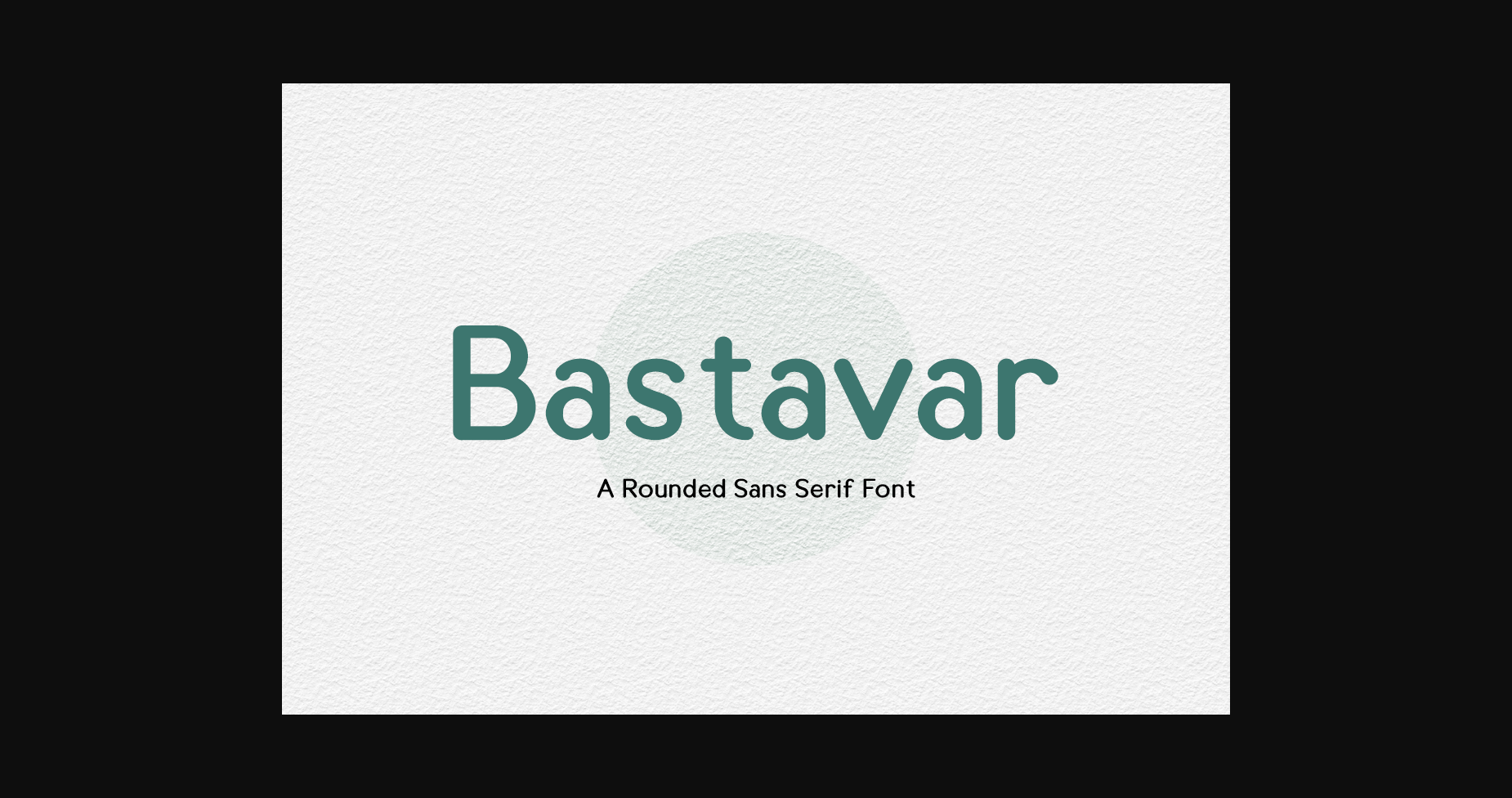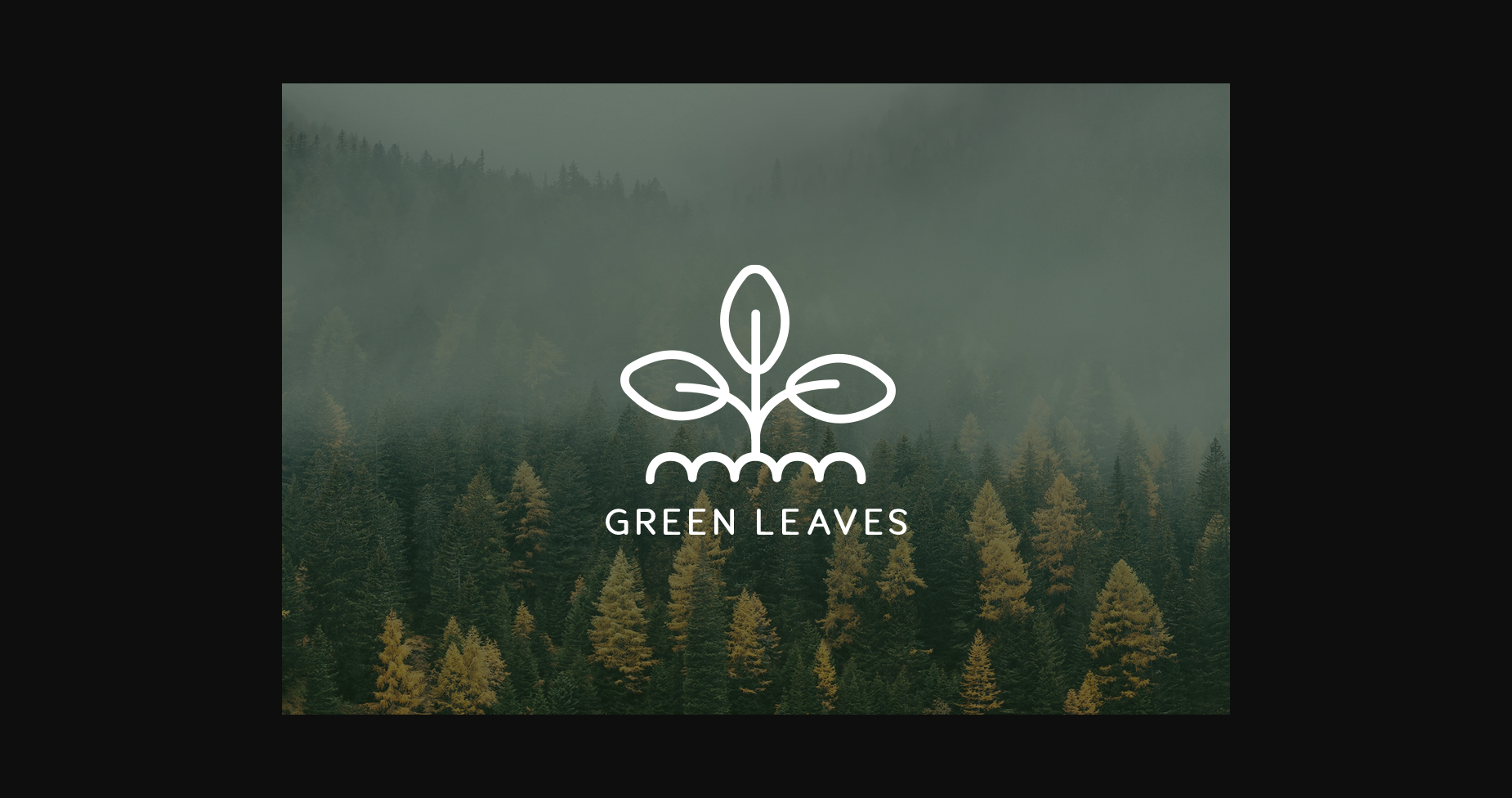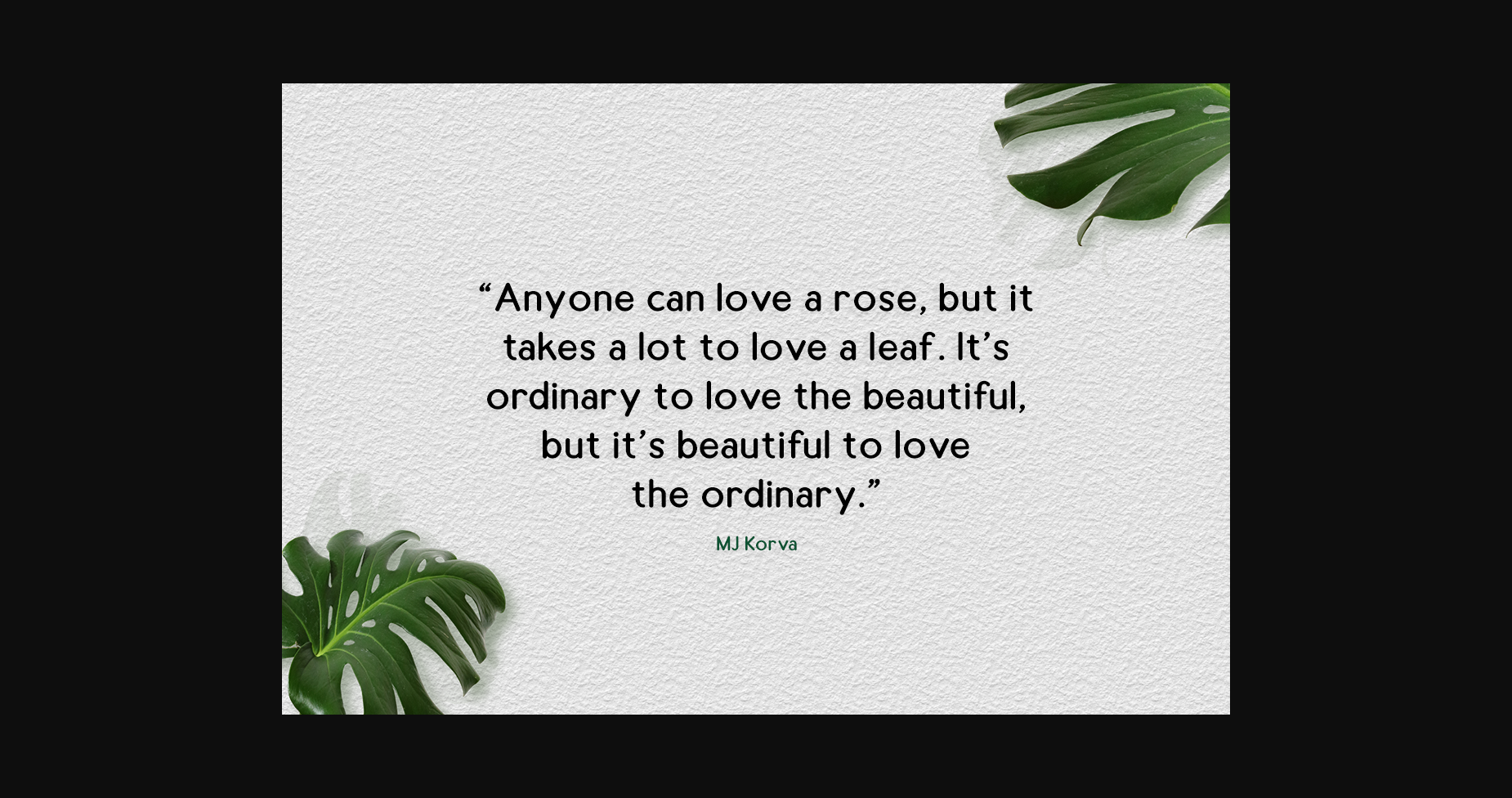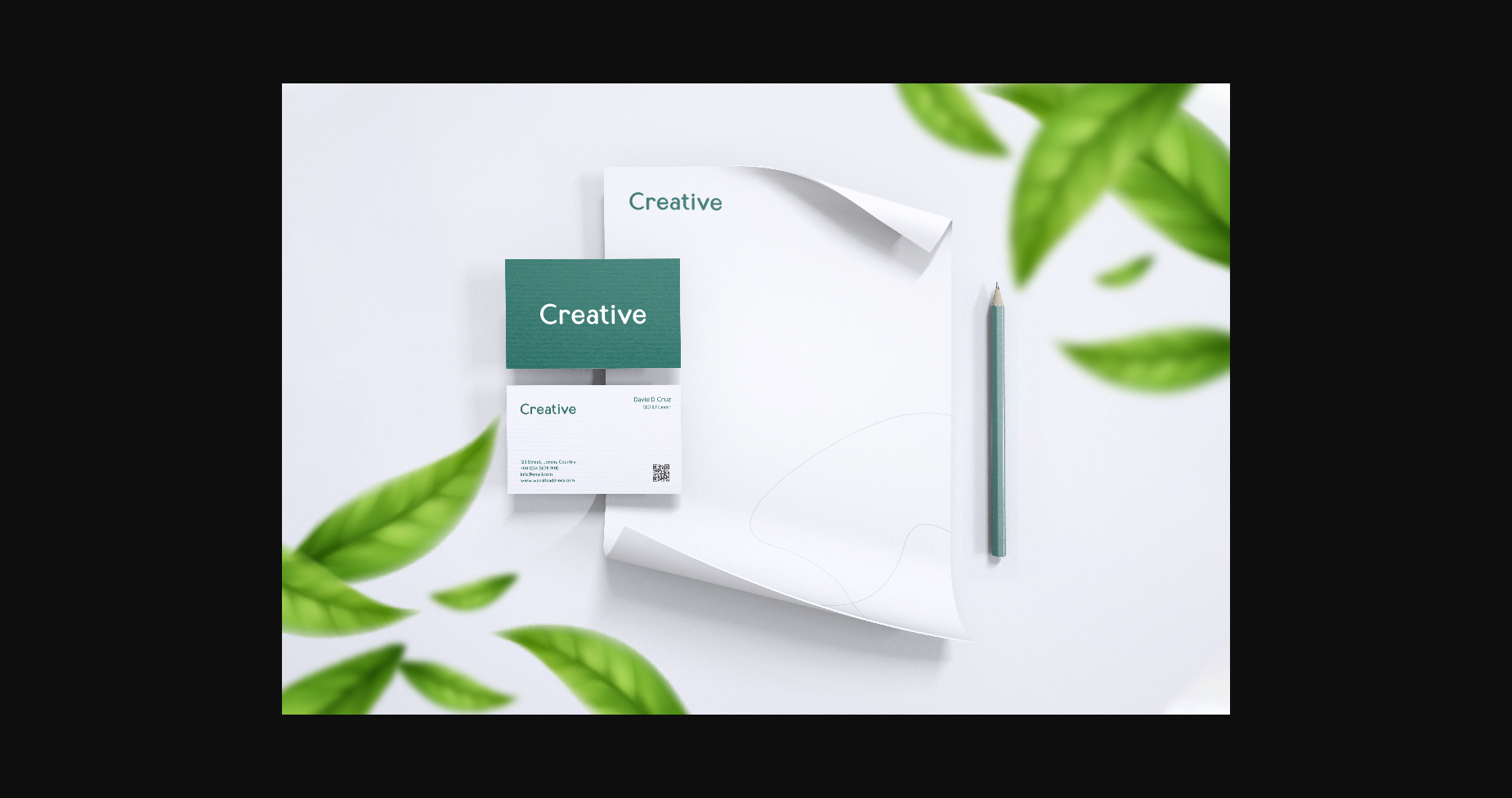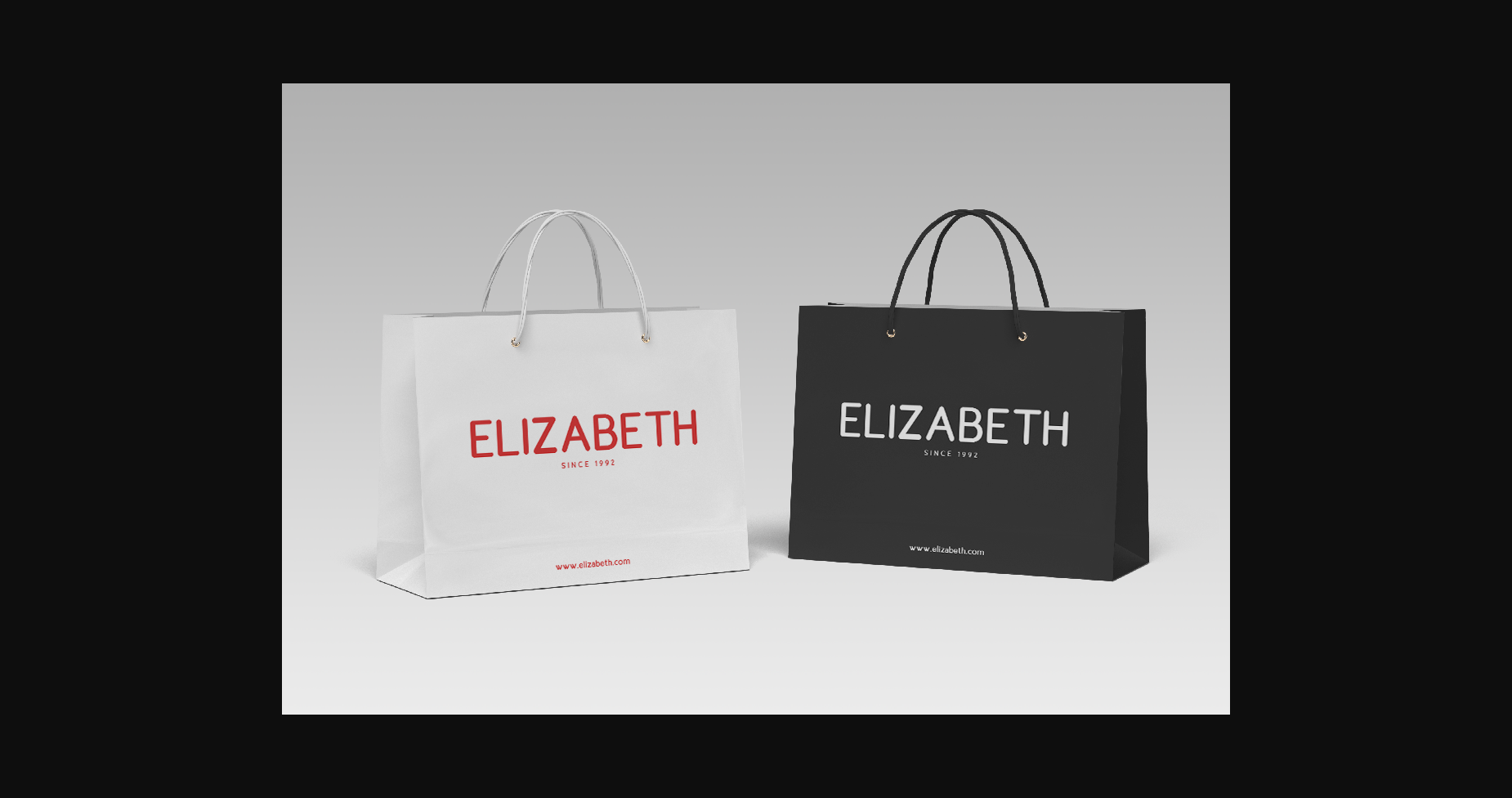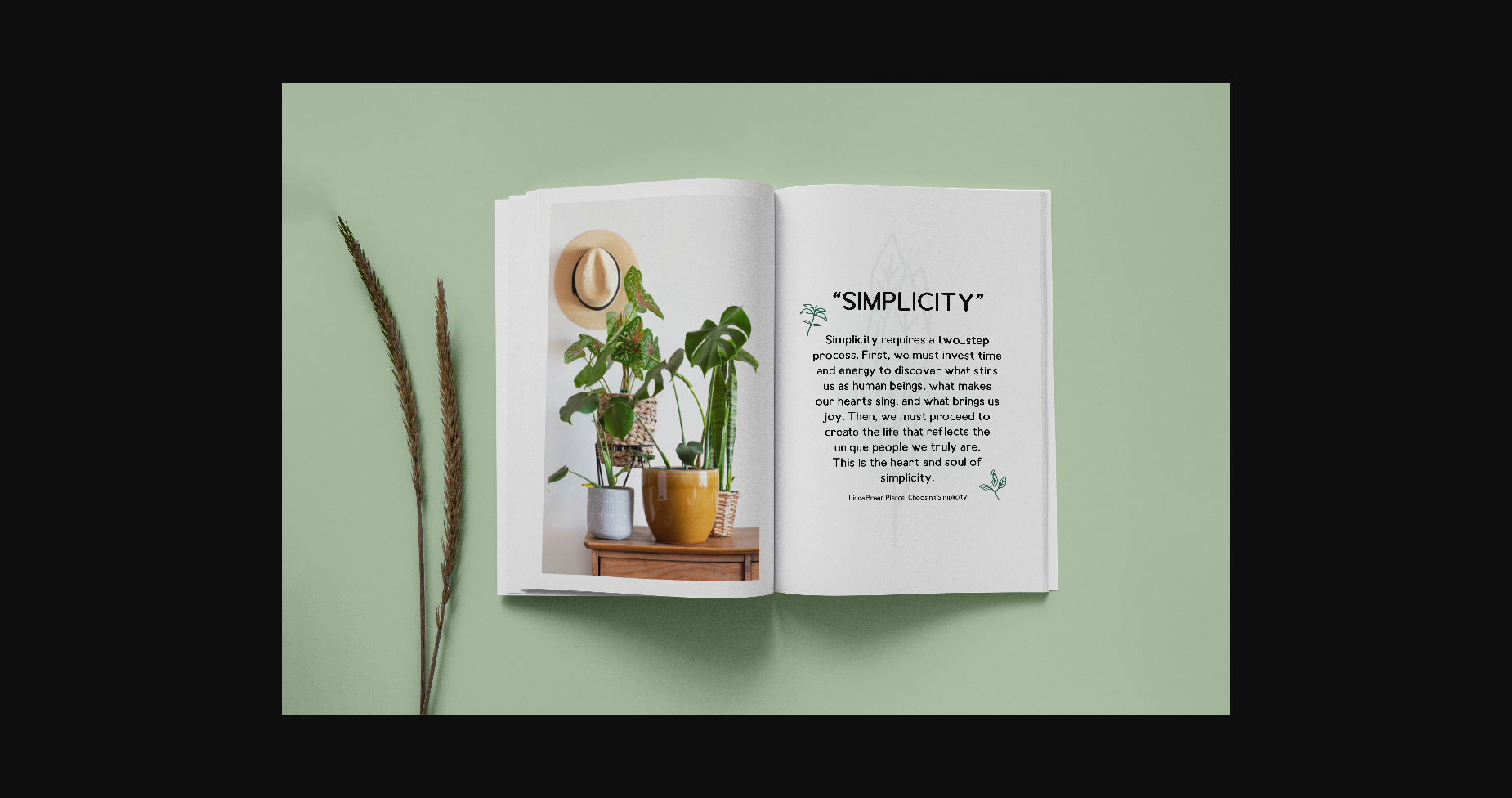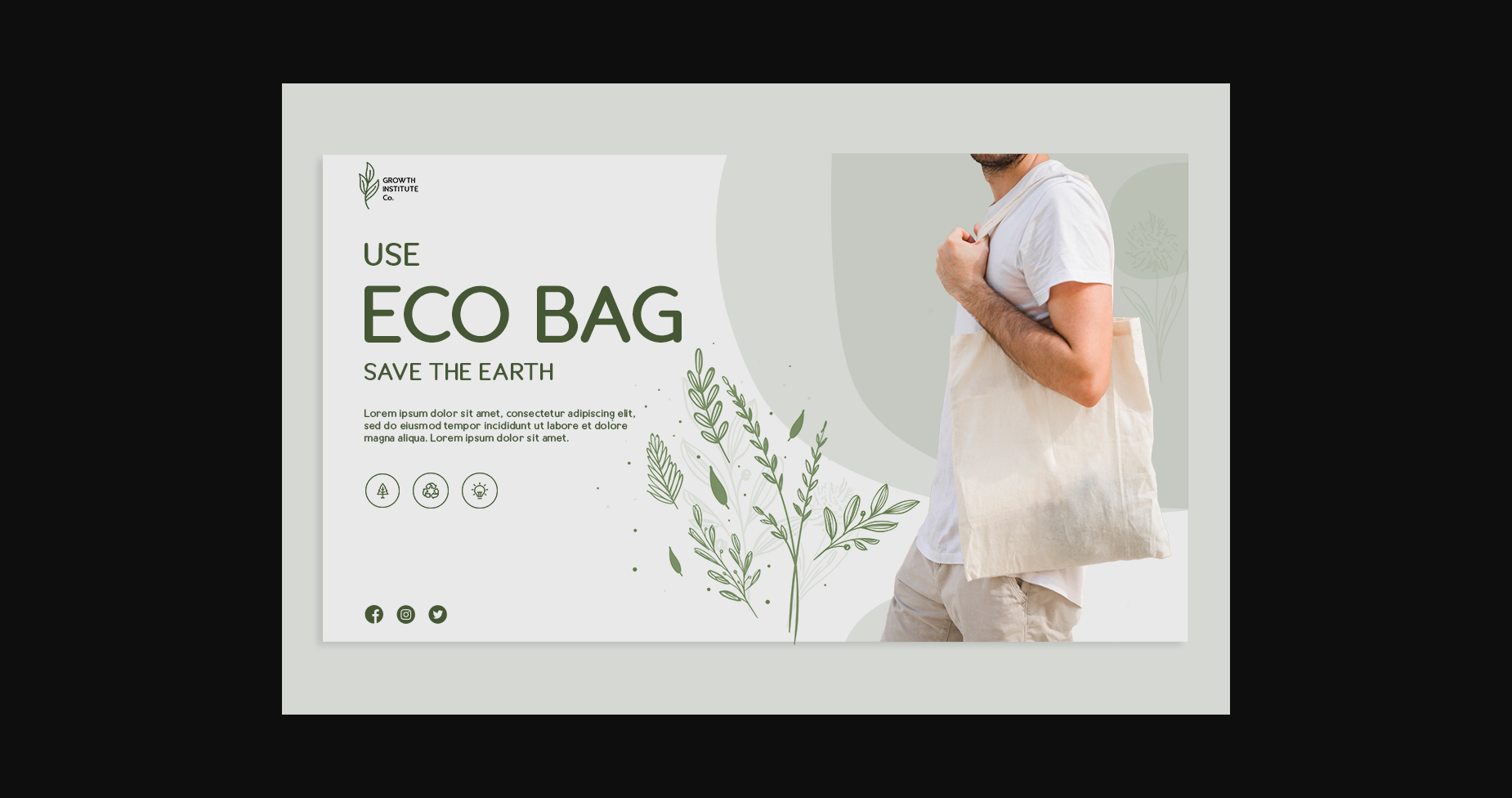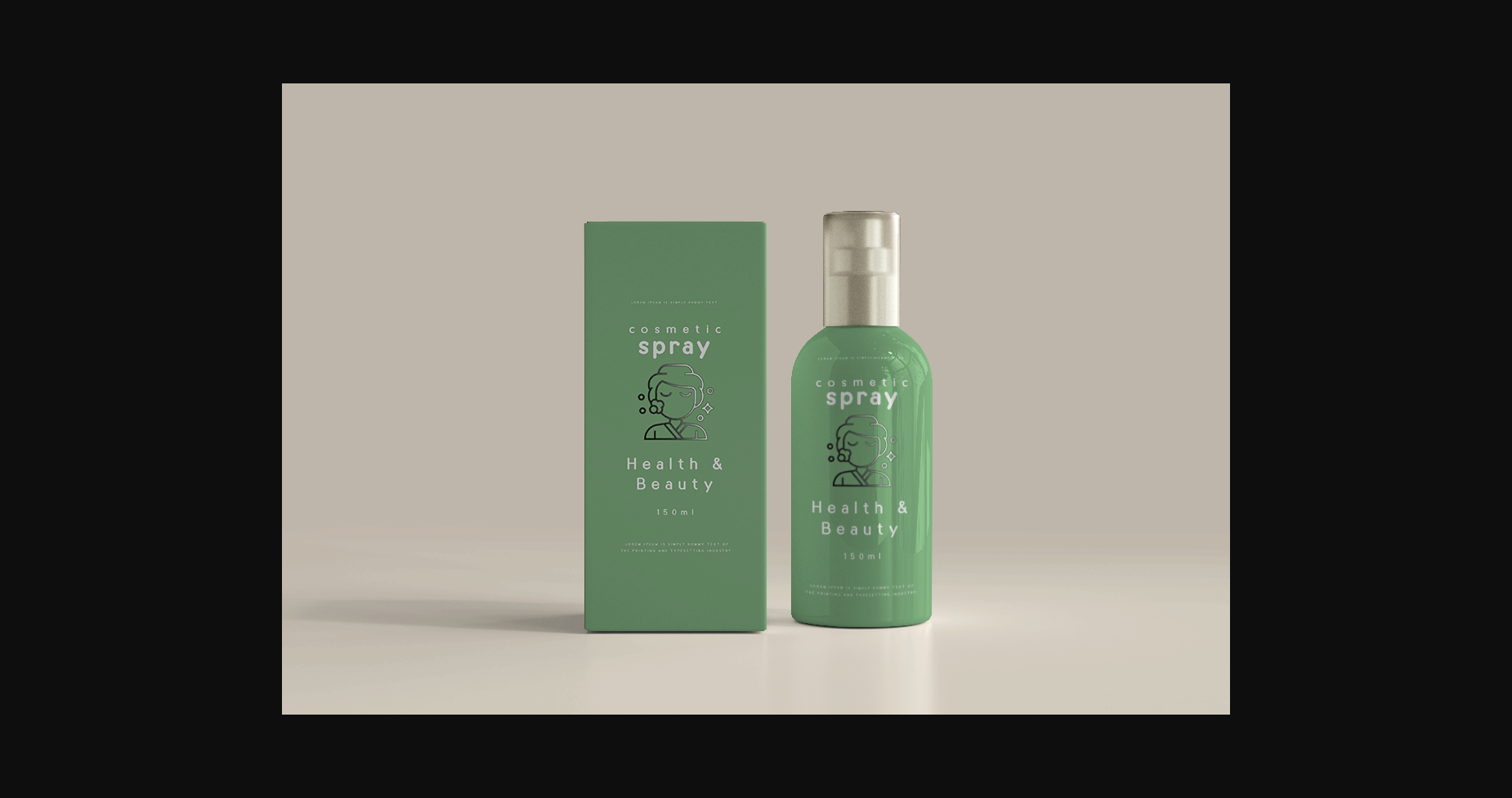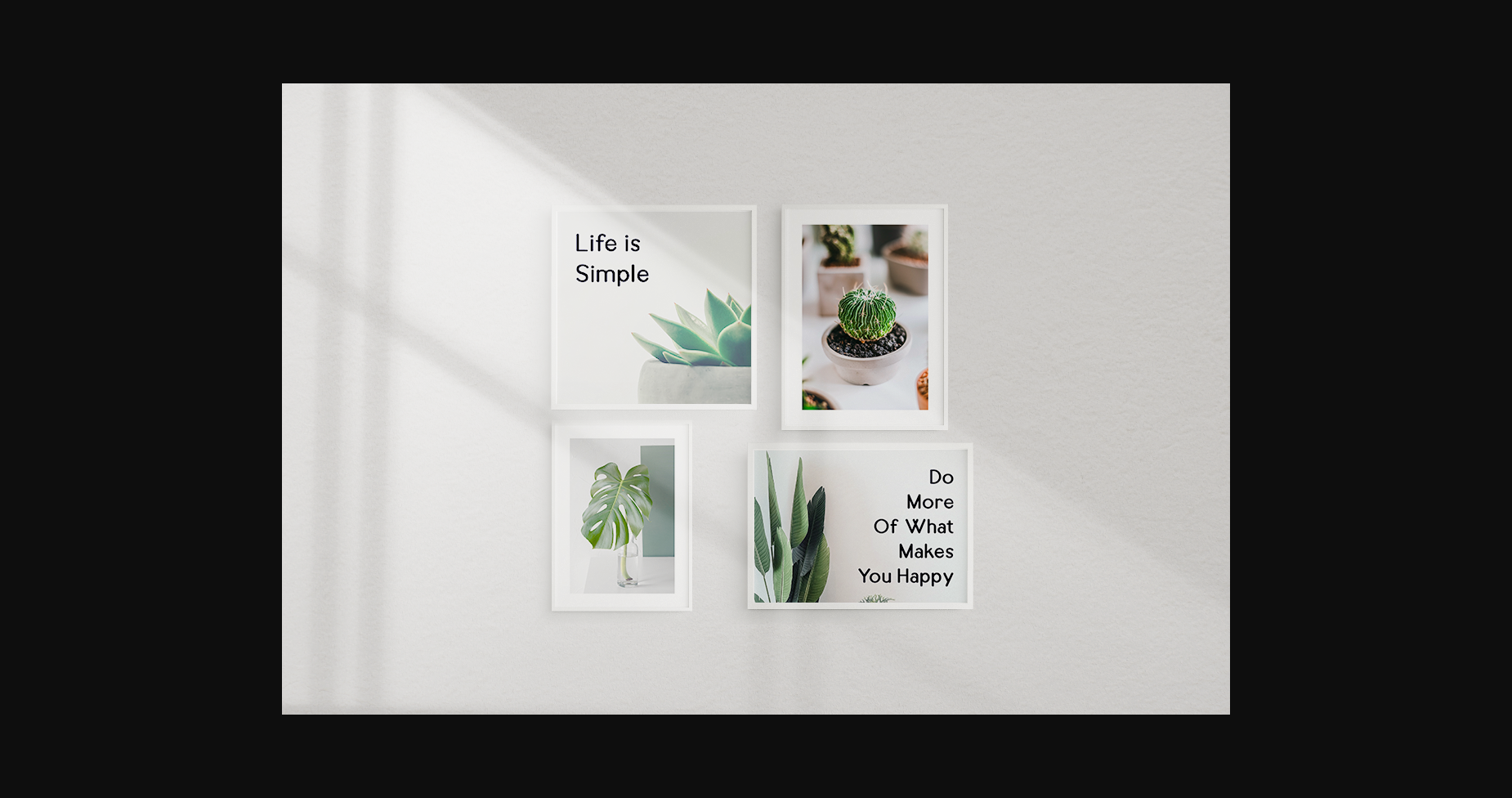
HomeSans Serif FontsBastavar Font Sans Serif Fonts Bastavar Font FacebookXPinterestWhatsApp 1 of 11 ... Bastavar Font Poster 2... Bastavar Font Poster 3... Bastavar Font Poster 4... Bastavar Font Poster 5... Bastavar Font Poster 6... Bastavar Font Poster 7... Bastavar Font Poster 8... Bastavar Font Poster 9... Bastavar Font Poster 10... Bastavar Font Poster 11... About Bastavar Font Bastavar is a minimal and neat sans serif font. It can easily be matched to an incredibly large set of projects, so add it to your creative ideas and notice how it makes them stand out! DOWNLOAD NOW People also explored The Circus Show Monogram Font Motherday Font Thrones Font Bana Chips Font School Memo Font Standing Stones Groovy Font PN Ski-Doozy and Ski-Dazy Font Duo Font Sunday Font 297 0 TagsBastavar Font Previous articleGokars FontNext articlePearch Font LEAVE A REPLY Cancel reply Comment: Please enter your comment! Name:* Please enter your name here Email:* You have entered an incorrect email address! Please enter your email address here Website: Save my name, email, and website in this browser for the next time I comment. Personal Use Free Silver Bullet Personal Use Free Read more about this font Baveuse Personal Use Free Read more about this font Masker Area Personal Use Free Read more about this font Mixed Artistry Personal Use Free Read more about this font BLOG How to Install and Use Fonts on Windows, macOS, and Web Projects How to Install and Use Fonts on Windows, macOS, and Web Projects Fonts are a crucial part of design and branding. Whether you’re designing a... Best Fonts for T-Shirt Design – Top 2025 Picks Free vs Paid Fonts: Why Investing in Premium Fonts Is Worth It Where to Buy American Fonts Online in 2024